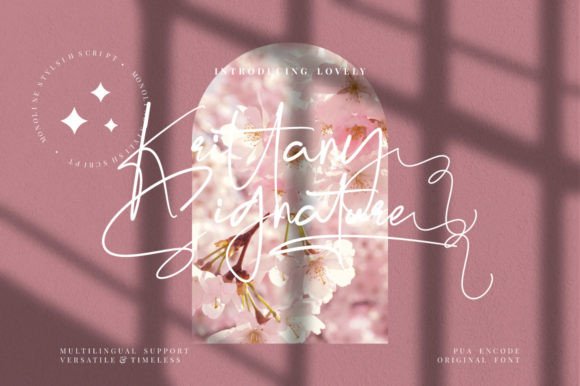
Looking for the best font for typography that can elevate your design projects? Look no further than Krittany Signature Font, a beautiful and sophisticated script font created by FinType Studio.
Crafted with meticulous attention to detail, Krittany Signature Font is an exquisite masterpiece that will add a touch of luxury and elegance to any project. Each letter is perfectly curved with graceful flourishes that exude grace and sophistication. Whether you're designing a wedding invitation, logo, or any other project that requires a touch of elegance, Krittany Signature Font is the perfect choice.
One of the unique features of Krittany Signature Font is that it is PUA encoded, which means you can easily access all glyphs and swashes with ease. This feature allows you to customize your design projects to your heart's content and make them truly unique.